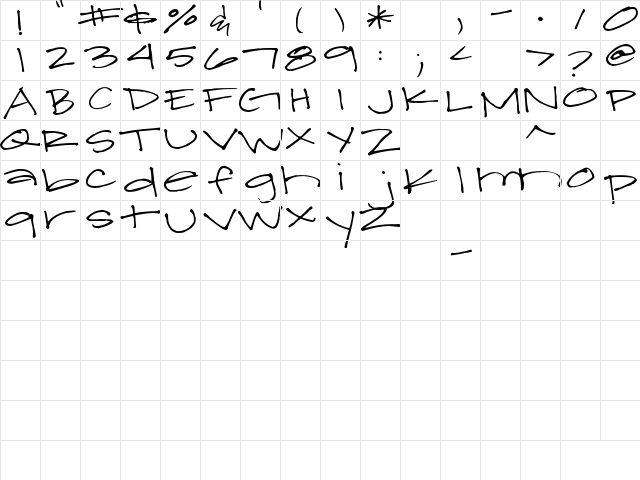
Complete Pea Jamie*B* Wake Up Fishy! Regular glyph index. Displaying only characters natively supported by Pea Jamie*B* Wake Up Fishy! Regular font.
Pea Jamie*B* Wake Up Fishy! is a composed and adaptable typeface that performs quietly and consistently across a wide range of design contexts.